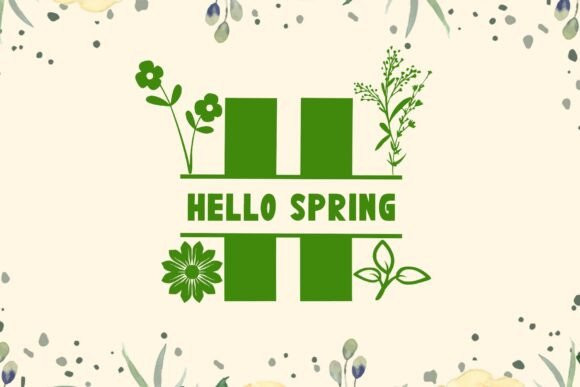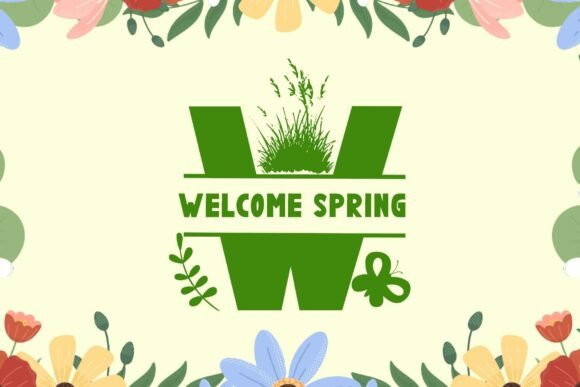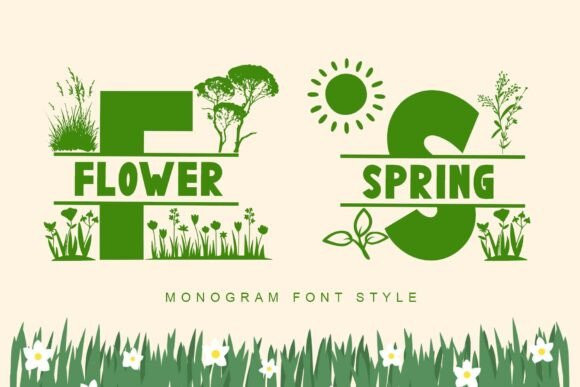
Flower Spring Font
Flower Spring Font is a unique and cute monogram display font. This font is equipped with uppercase, lowercase, numeral, punctuations and multilingual support. Very suitable for spring, summer, vacation, display, cartoon, sticker, easter, print, branding, logo and others.